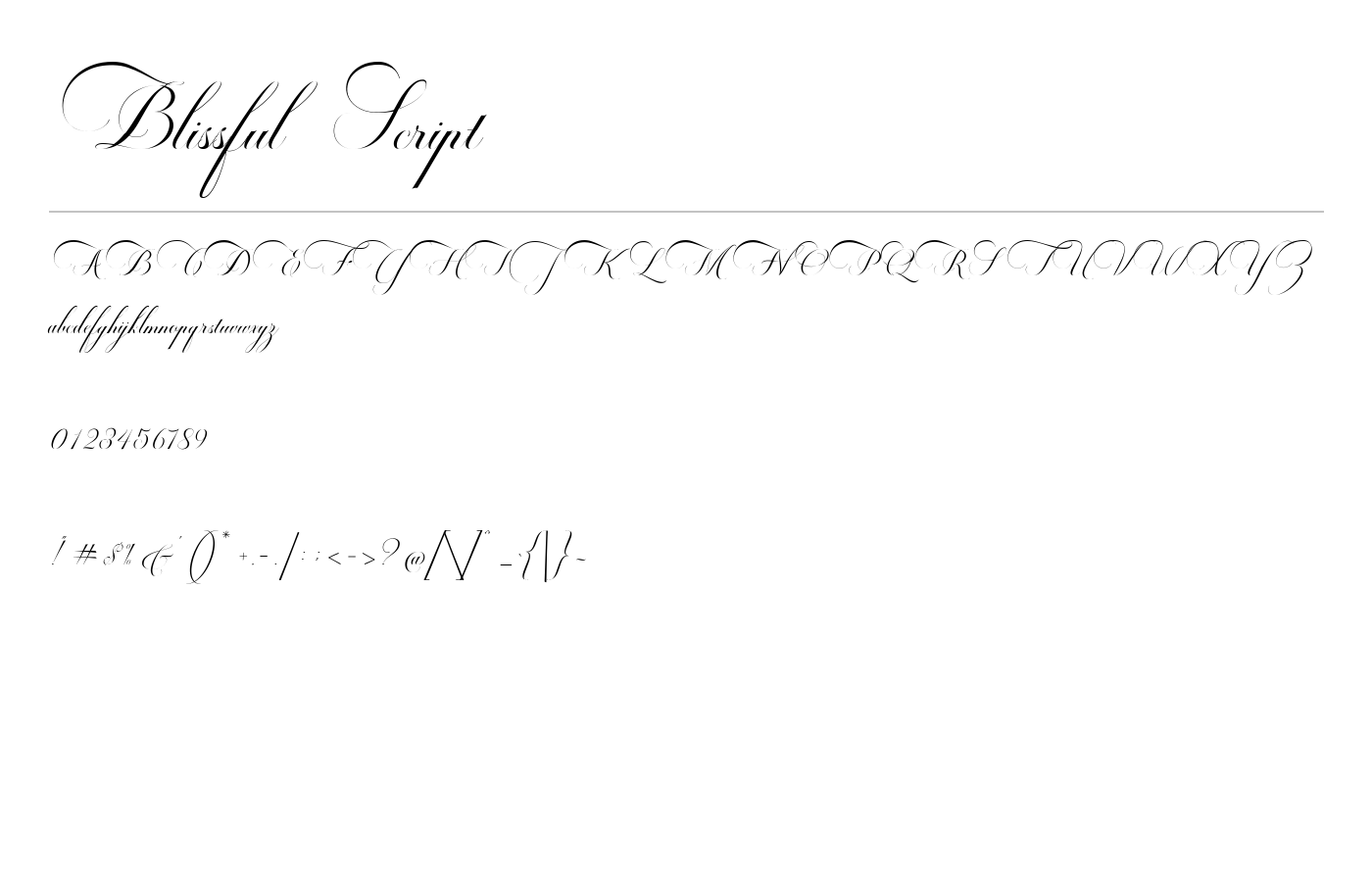
Blissful Script is an elegant and delicate script font characterized by flowing, graceful letterforms with high contrast between thick and thin strokes. Its refined swashes and flourishes give it a sophisticated, luxury feel, making it an ideal choice for wedding invitations, upscale branding, and elegant editorial design where a sense of refinement and beauty is desired. This font works best in large display sizes or headlines rather than body text, enhancing the visual impact of any project with its artistic and stylish charm.
Blissful Script Font
About Blissful Script Font
| Font family | Blissful Script Font |
| Designer | Romi Rahmadi |